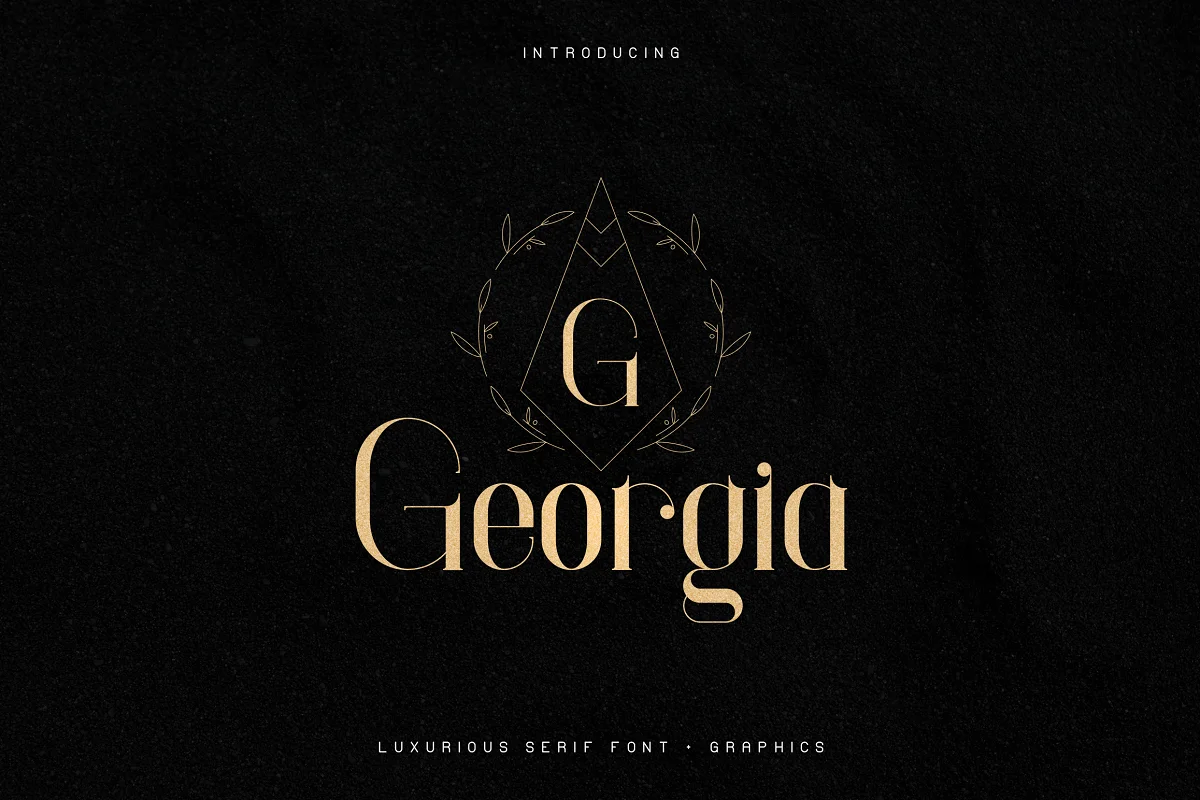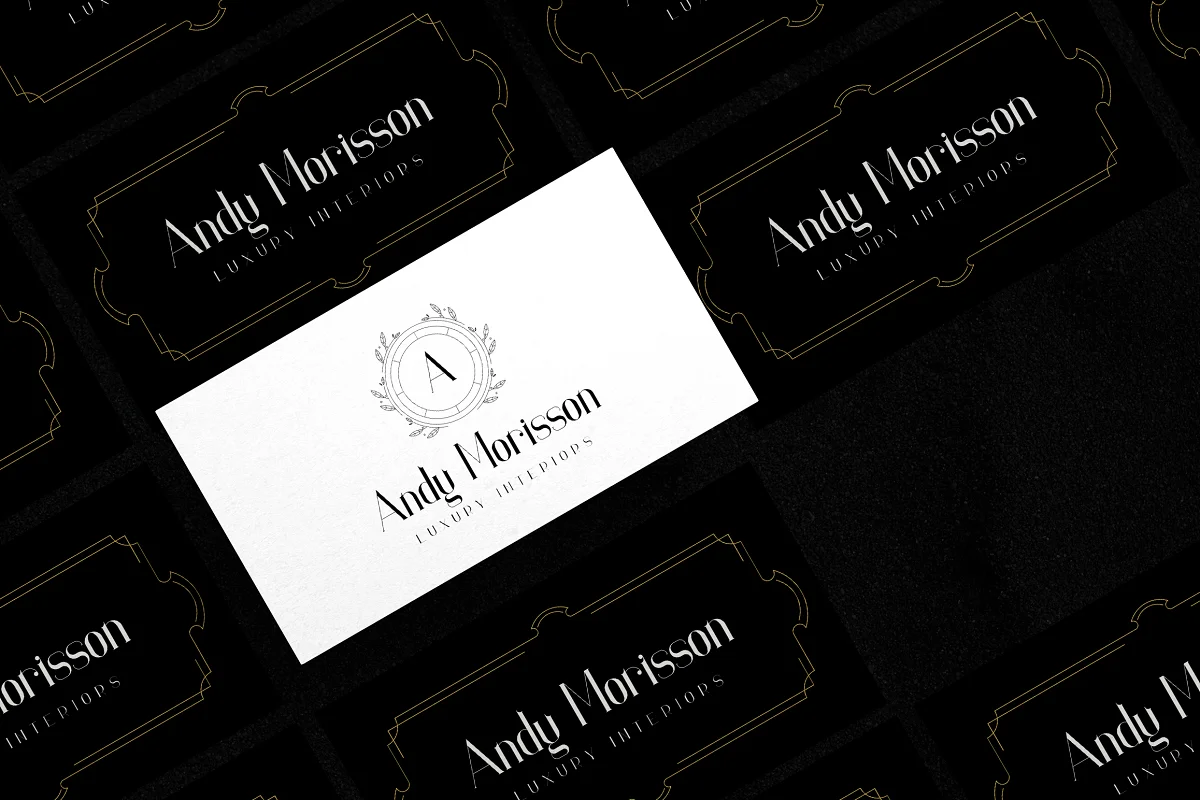
About the Georgia Luxurious Serif Font
Georgia luxurious serif font Georgia is a clean, fancy serif font with additional vector elements and multilingual support. It’s a very versatile font that works great in large and small sizes.
Georgia is perfect for branding projects, home-ware designs, product packaging, magazine headers – or simply as a stylish text overlay to any background image.